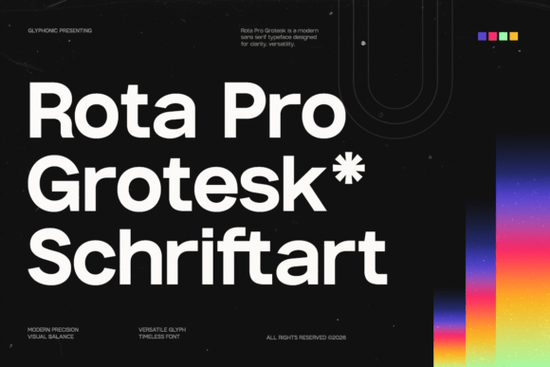
If you're looking for a typeface that combines modern clarity with timeless appeal, Rota Pro Grotesk Font is a great choice. This contemporary sans serif font is designed to be both functional and sophisticated, making it perfect for a wide range of design projects.
Why Choose Rota Pro Grotesk Font?
Rota Pro Grotesk is built with clean geometry, balanced proportions, and refined modern detailing. This makes it an ideal choice for designers who need a versatile typographic voice that can adapt to various design needs. Whether you're working on branding systems, editorial layouts, digital interfaces, or corporate communications, Rota Pro Grotesk offers the flexibility and consistency you need.
What Makes Rota Pro Grotesk Stand Out?
One of the key features of Rota Pro Grotesk is its variable weight control. This allows designers to create a seamless visual hierarchy, which is essential for maintaining a professional and polished look across different design elements. The balanced construction of the font ensures that it remains consistent across all weights, preserving its clean and contemporary character.
How Can You Use Rota Pro Grotesk in Your Designs?
Rota Pro Grotesk is incredibly versatile and can be used in a variety of design contexts:
- Branding Systems: Create impactful logos and brand identities that feel both modern and classic.
- Editorial Layouts: Design clean and readable text for magazines, books, and other print materials.
- Digital Interfaces: Enhance the user experience with clear and legible typography for websites and apps.
- Corporate Communications: Produce professional and polished documents, presentations, and reports.
Comparing Rota Pro Grotesk with Other Sans Serif Fonts
When choosing a sans serif font, it's important to consider how it fits into your overall design aesthetic. Here are a few other popular options and how they compare to Rota Pro Grotesk:
- Luxury Font: If you're looking for a more elegant and high-end feel, Luxury Font might be a good alternative. It has a more refined and luxurious appearance, making it suitable for high-end branding and luxury goods.
- Might Font: For a bolder and more robust look, Might Font could be a better fit. It has a strong and assertive presence, making it ideal for headlines and statements that need to stand out.
- Sunflower Font: If you prefer a more friendly and approachable style, Sunflower Font is a great option. It has a warm and inviting feel, making it perfect for designs that need to be welcoming and engaging.
- Velafine Font: For a more minimalist and modern look, Velafine Font offers a sleek and simple design. It's ideal for clean and uncluttered designs where simplicity is key.
Tips for Using Rota Pro Grotesk Effectively
To get the most out of Rota Pro Grotesk, here are a few practical tips:
- Experiment with Weights: Use the variable weight control to create a dynamic and visually interesting design. Play around with different weights to see what works best for your project.
- Maintain Consistency: Keep the font consistent across all design elements to maintain a professional and polished look. This is especially important for branding and corporate communications.
- Combine with Complementary Fonts: Consider pairing Rota Pro Grotesk with complementary serif or script fonts to add depth and variety to your designs.
- Test Readability: Ensure that the font is readable at different sizes and in different contexts. Test it in various scenarios to make sure it works well for your specific needs.
By following these tips, you can effectively use Rota Pro Grotesk to enhance the clarity, professionalism, and sophistication of your designs. Whether you're a designer, crafter, or small business owner, this versatile font is a valuable addition to your toolkit.